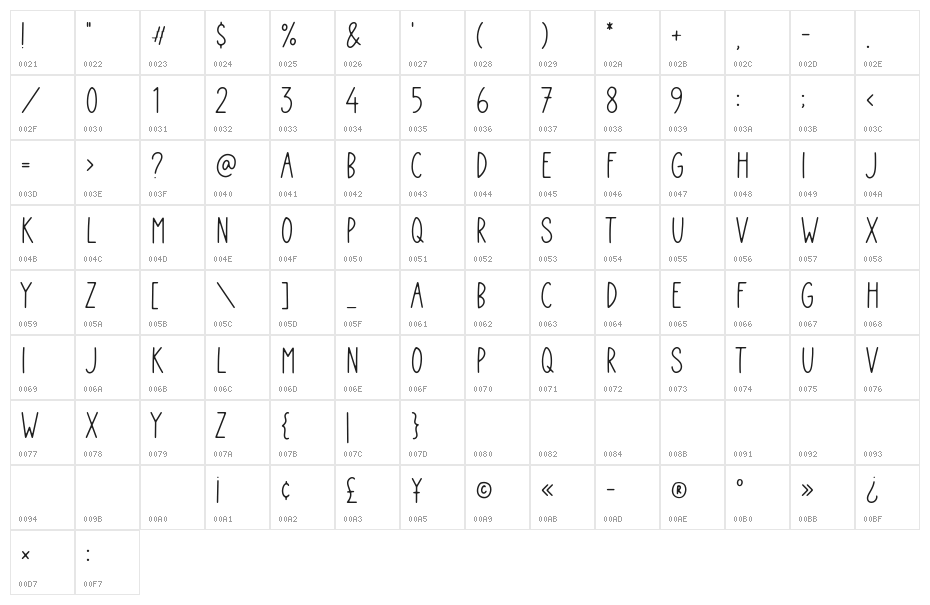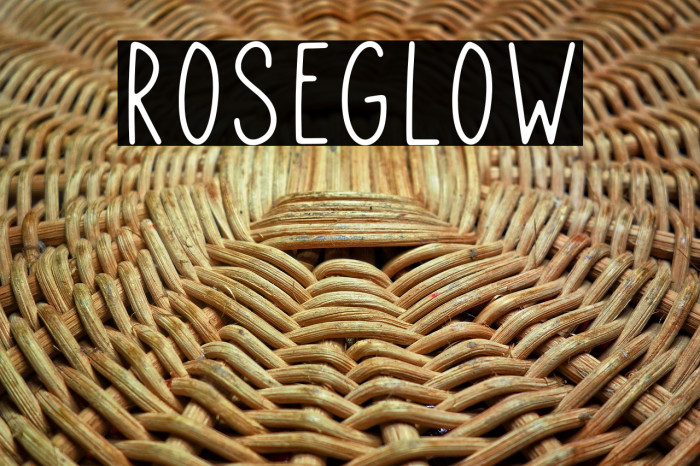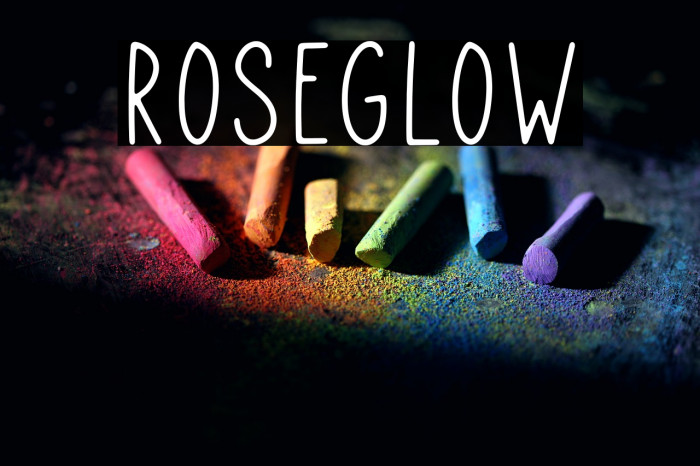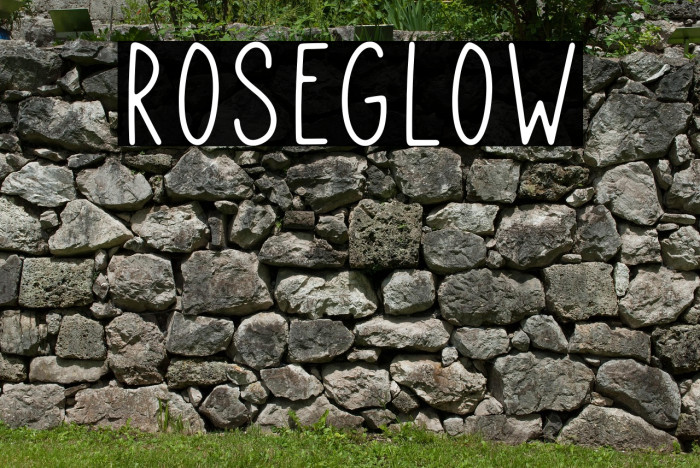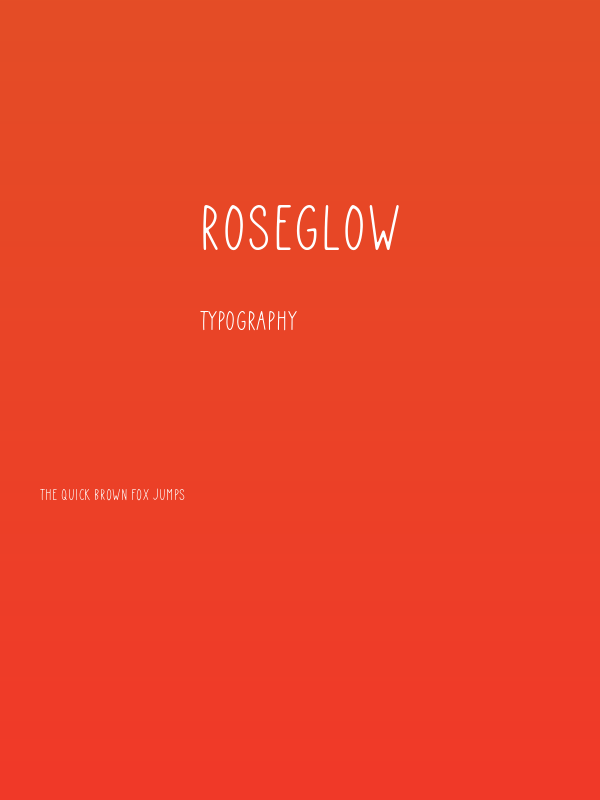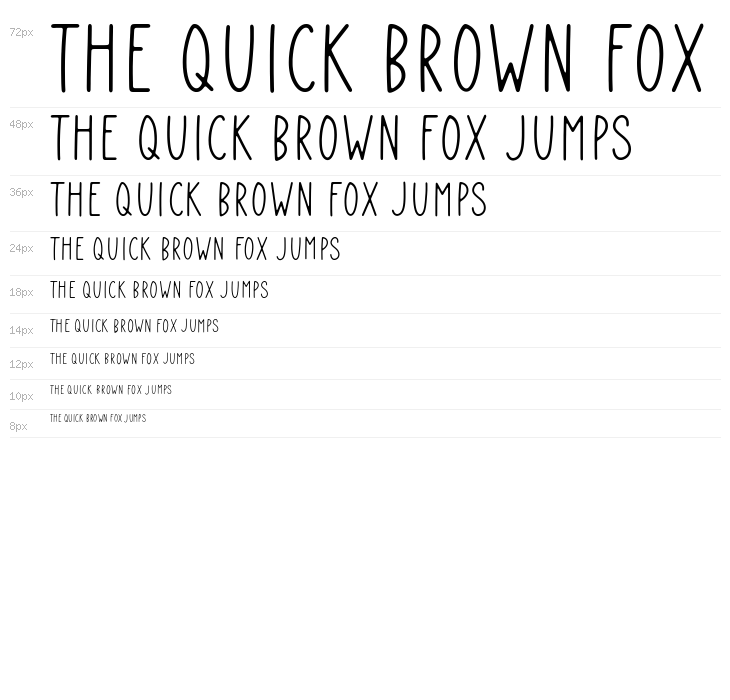
Roseglow Font
Roseglow Description
A tall, narrow sans-serif font with a handwritten, playful appearance and consistent stroke width. The characters are slightly irregular, giving it a casual and friendly feel.
| Overall Style | Casual, Playful, Modern |
| Use Case | Headlines, Posters, Informal text, Branding |
| Proposed Projects | Greeting cards, children's books, casual branding, posters, invitations. |